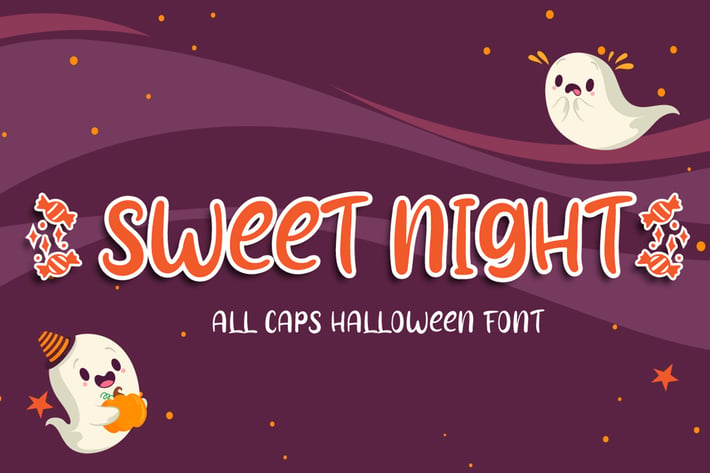
Sweet Night - Halloween Font
Sweet Night is an exquisite all caps font for Halloween theme design, with dingbats candy on character "{}[]" Fall in love with it and bring your projects to the highest levels!
Candy dingbats on character "{}[]"